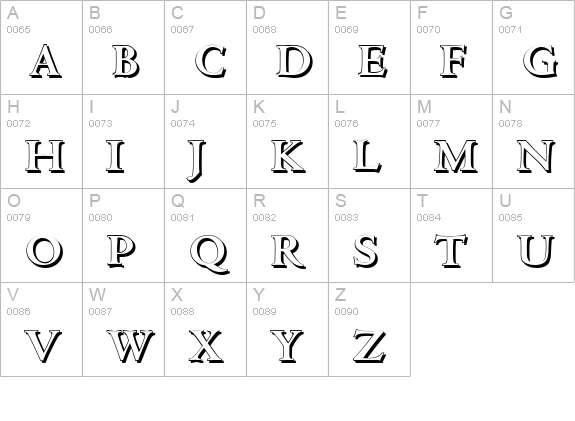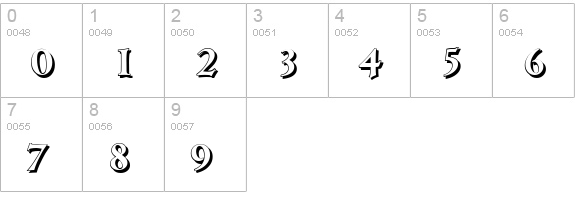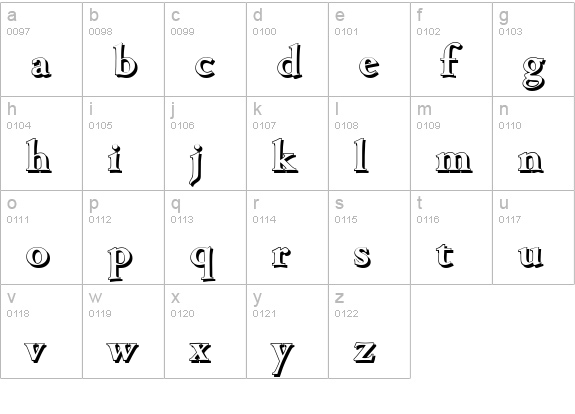
CambridgeShadow-Bold Font Details
CambridgeShadow-Bold is a strong, high-contrast variant in the CambridgeShadow typeface family \xE2\x80\x94 well suited to headlines, attention-grabbing titles, and strong calls-to-action.
CambridgeShadow-Bold is a bold and striking font that exudes elegance and sophistication. With its sharp edges and modern design, this font is perfect for making a statement in your projects. The strong presence of the letters commands attention and adds a touch of flair to any design. What's even better is that CambridgeShadow-Bold is available for free download at FontsMarket.com. This means you can easily access this eye-catching font and use it in your creative endeavors without any cost. So why wait? Download CambridgeShadow-Bold today and elevate your designs with this stylish and versatile typeface.